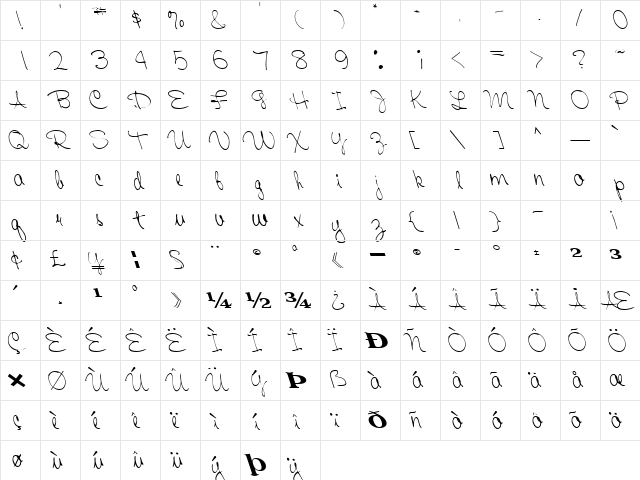
Fair Regular
Design Context for Fair Typeface
Fair is a composed and adaptable typeface that performs quietly and consistently across a wide range of design contexts.